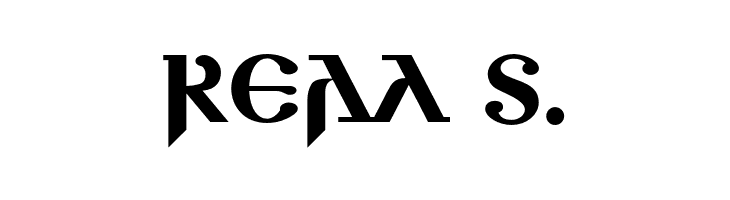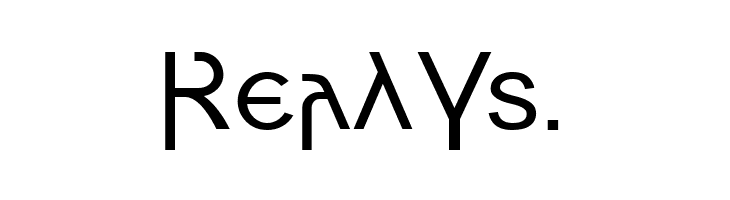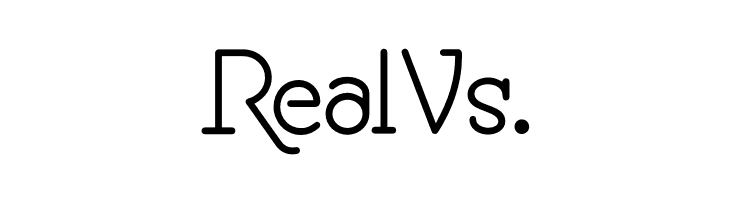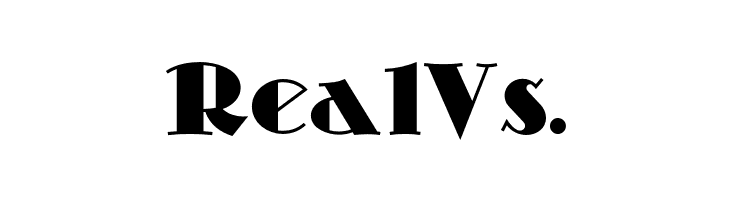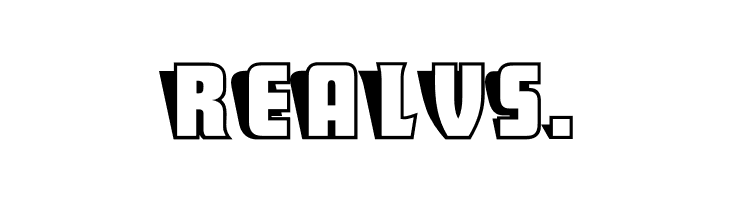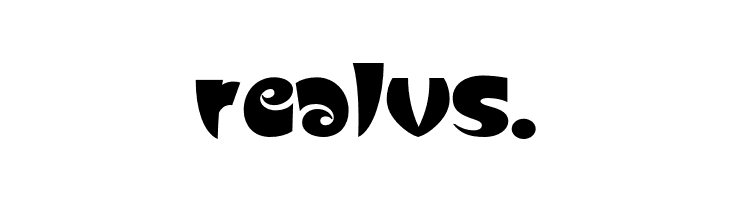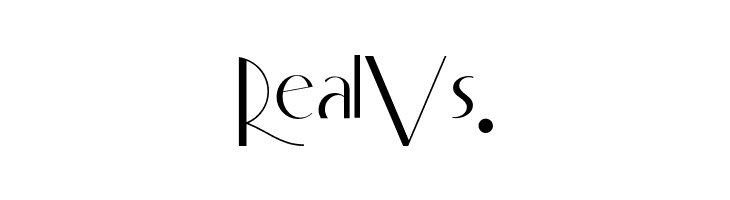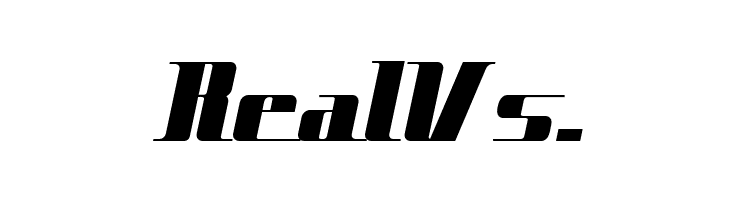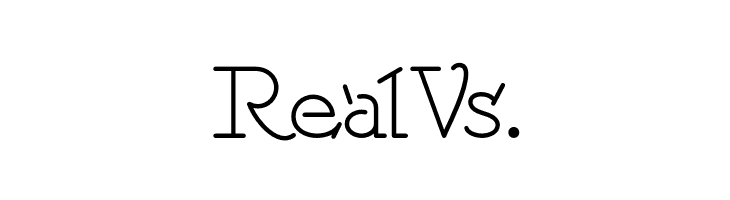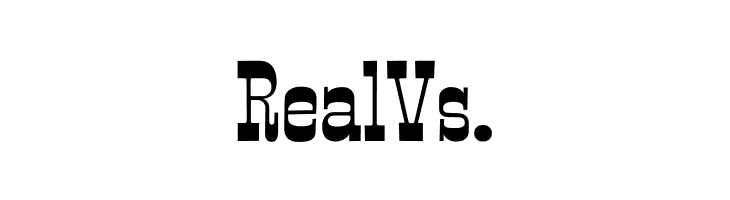
A playful and bold font with rounded, irregular shapes.
A bold, three-dimensional font with a vintage, shadowed style.
A bold, geometric font with a modern, industrial aesthetic.
A bold, geometric font with sharp edges and a retro-futuristic style.
An Art Deco-inspired font with geometric shapes and elegant embellishments.
A fantasy-inspired serif font with sharp, angular serifs and ornate details.
A bold, geometric font with playful and striking characters.
A bold, angular font with sharp serifs and a modern Gothic influence.
A bold, distressed font with a grunge-like, hand-drawn appearance.
A modern, geometric font with sharp angles and clean lines.
A modern, geometric font with thin, elongated characters and a sleek design.
A bold, high-contrast font with angular serifs and dynamic style.
A bold slab serif font with strong, block-like serifs and a classic yet modern appeal.
A bold, brush-style font with an energetic and hand-drawn appearance.
A bold, playful font with exaggerated curves and a whimsical style.
An elegant and artistic font with flowing lines and decorative flourishes.
Cartoonish font made of expressive smiling faces.
A whimsical, decorative font with characters embedded in cartoon illustrations.
A bold, slab serif font with a Western-inspired, vintage style.
A playful, bold font with quirky, rounded characters and a whimsical style.
A playful, bold font with rounded, dynamic letterforms.
A bold, modern font with geometric lines and a slightly condensed style.
A festive font with uppercase letters in snowmen and lowercase in snowflakes.
A bold, pixelated font with a retro digital style.
A bold, geometric font with a futuristic, digital aesthetic.
A futuristic, angular font with a dynamic slant and bold presence.
A modern, geometric font with a hollow, outlined design and consistent stroke widths.
A modern, rounded font with a clean, condensed style and uniform stroke width.
A modern, geometric font with outlined characters and a minimalist style.
A dynamic and energetic font with sharp, angular strokes and a cursive-like appearance.
A playful, geometric font with rounded letterforms and a modern yet vintage appeal.
A geometric and decorative font with rounded serifs and consistent stroke width.
Bold, angular font with a distressed texture and geometric influence.
A pixelated, retro-style font with a digital, tech-inspired aesthetic.